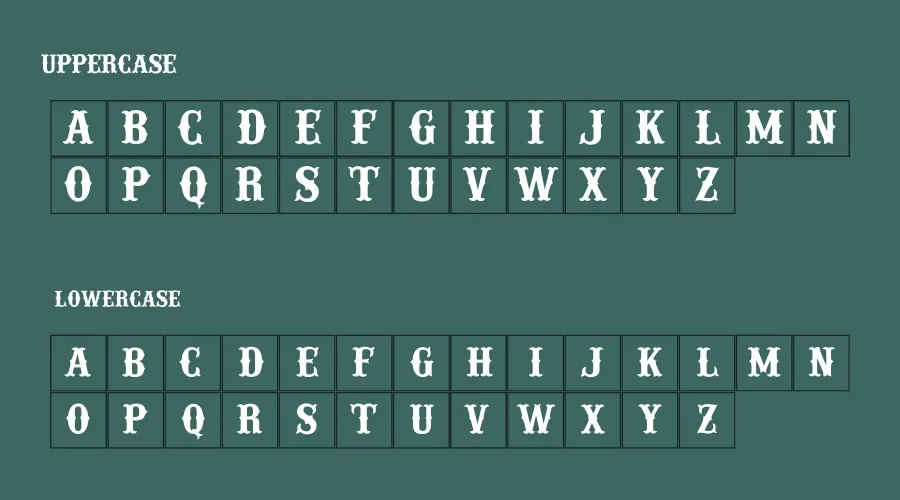
About IFC Railroad Font
The IFC Railroad Font was invented by a famous graphic designer Anton Krylov and is available in full version with both file formats OTF and TTF. This font has a classic, timeless feel, with its bold serifs and quaint letterforms, making it an ideal choice for all your fun tasks and projects.
The online generator tool of the IFC Railroad typeface will convert all your normal type of alphabet characters into stylish and trendy shops. The font can be used to create fantastic logos and signage, as well as posters and flyers, that have a unique and eye-catching visual appeal.
When this stunning typeface was released in the font world, it gained soo much popularity in a very short time because it has a neat and good-looking texture look that is perfect for your both operating systems PC and Mac without any security issues. You may easily combine this font with mini heart font and make new attractive projects.